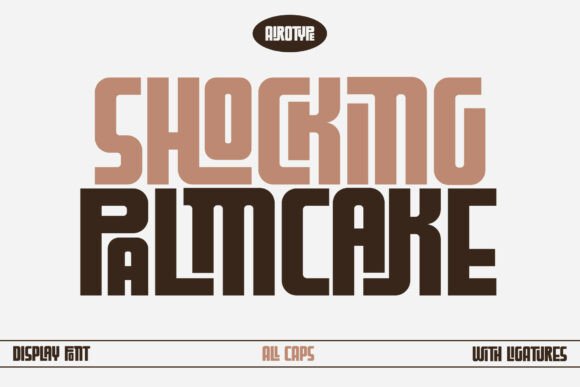
Shocking Palm Cake
If you are looking for high-quality assets like Shocking Palm Cake, this premium package is a fantastic choice for your creative projects.
Whether you are creating POD (Print on Demand) products, wedding invitations, or social media graphics, Shocking Palm Cake is an ideal fit.